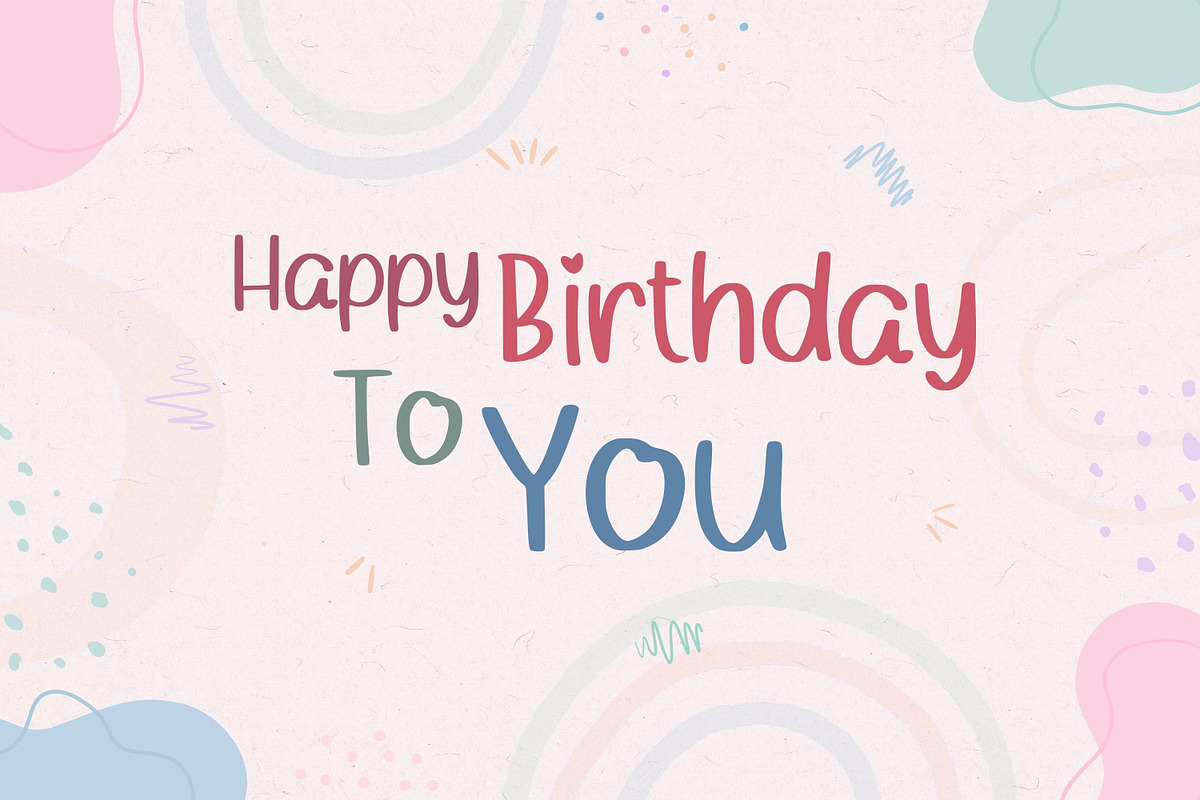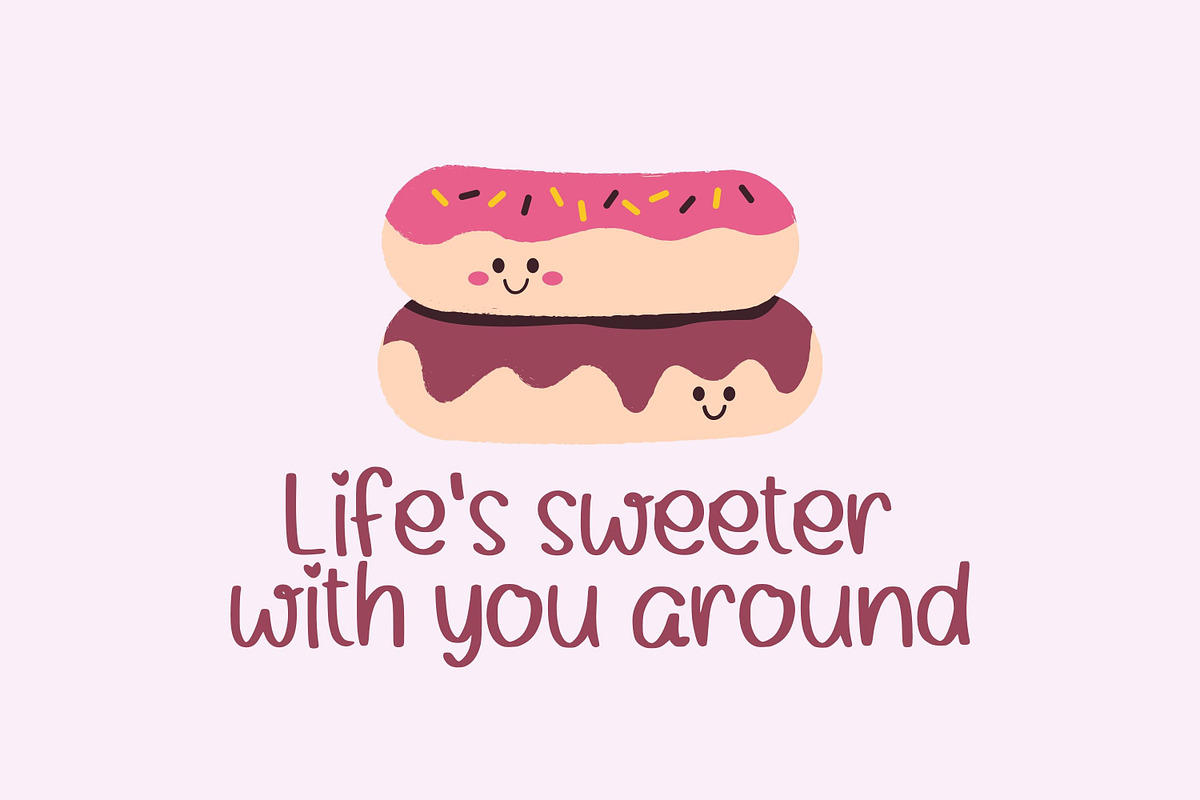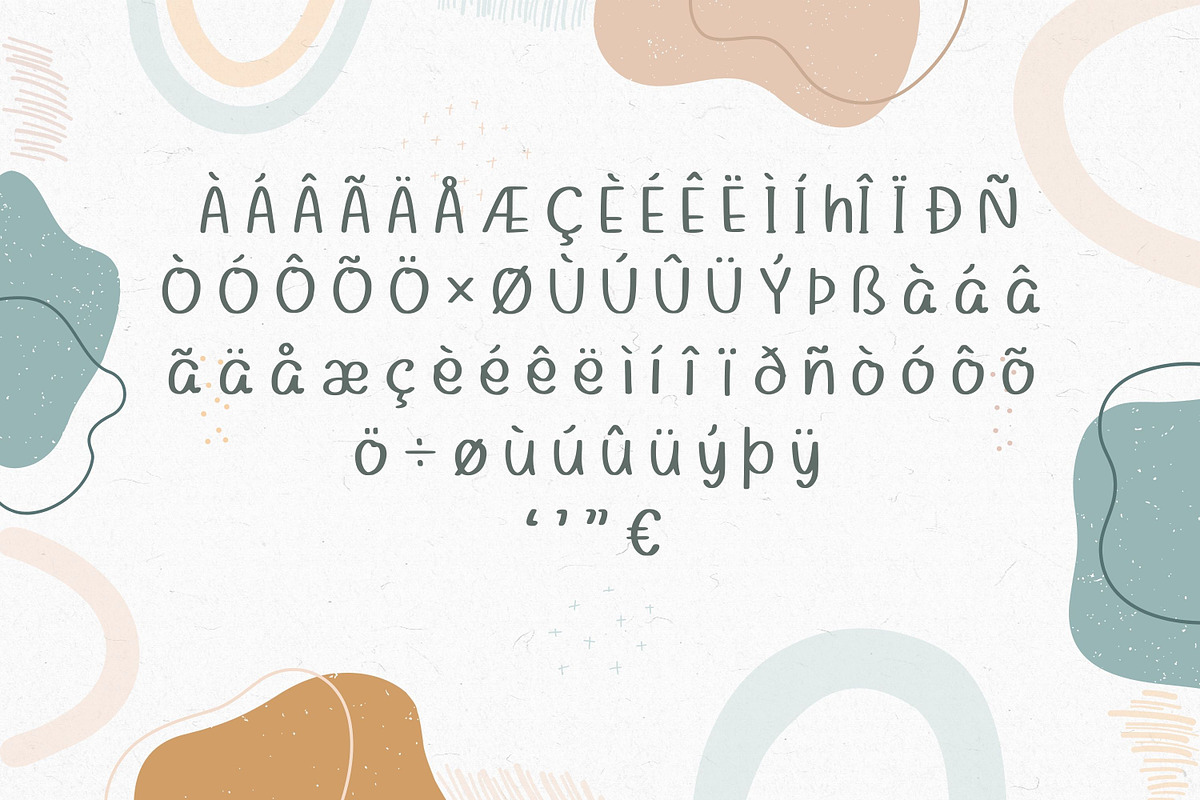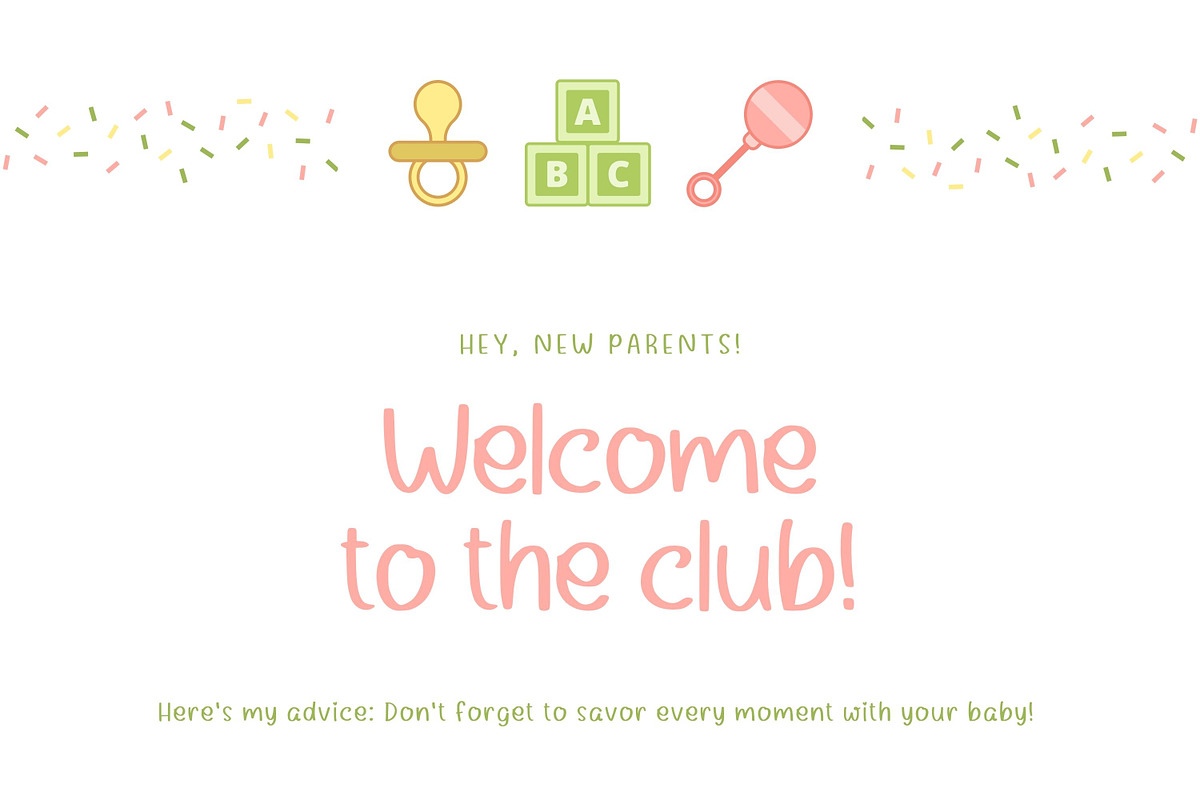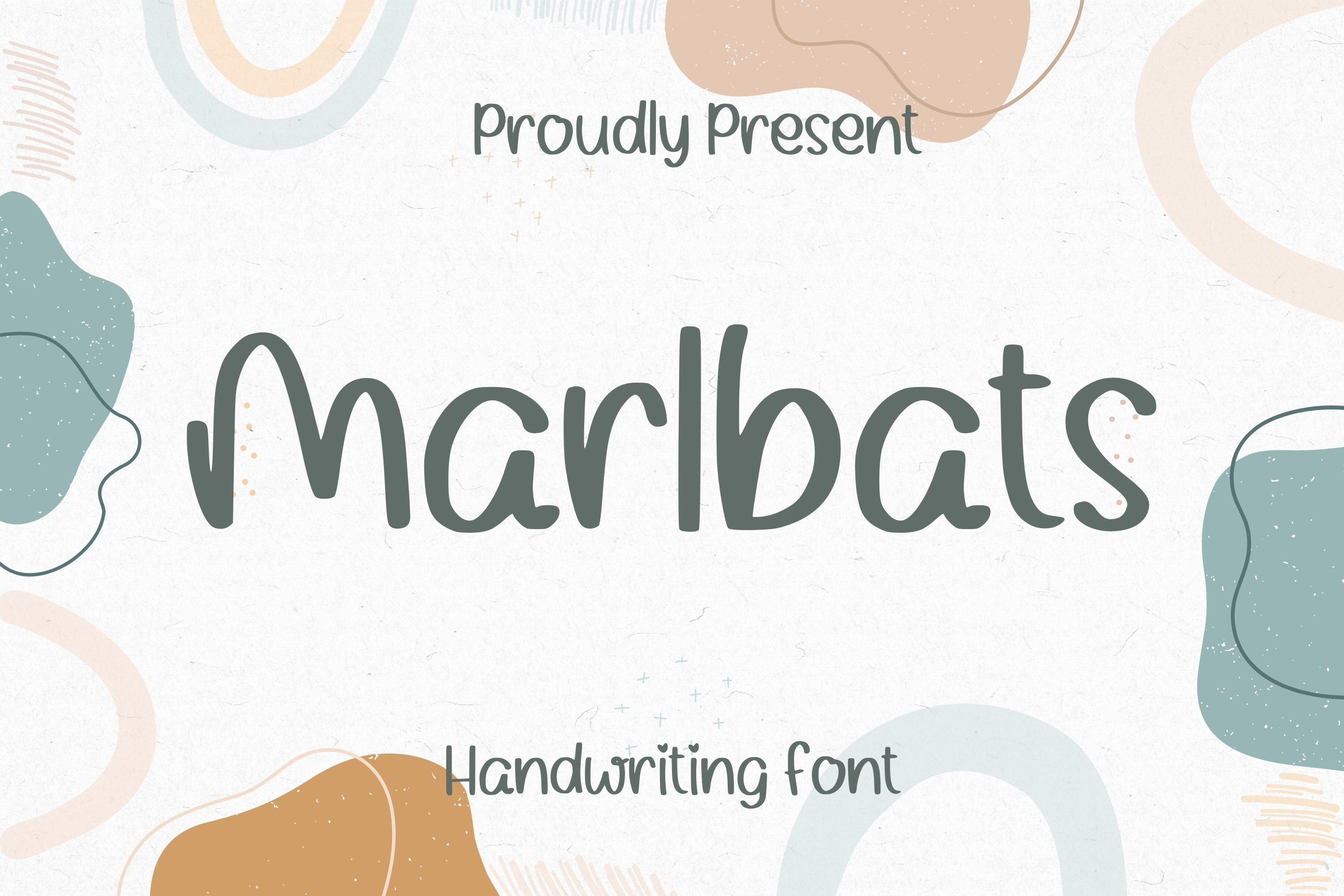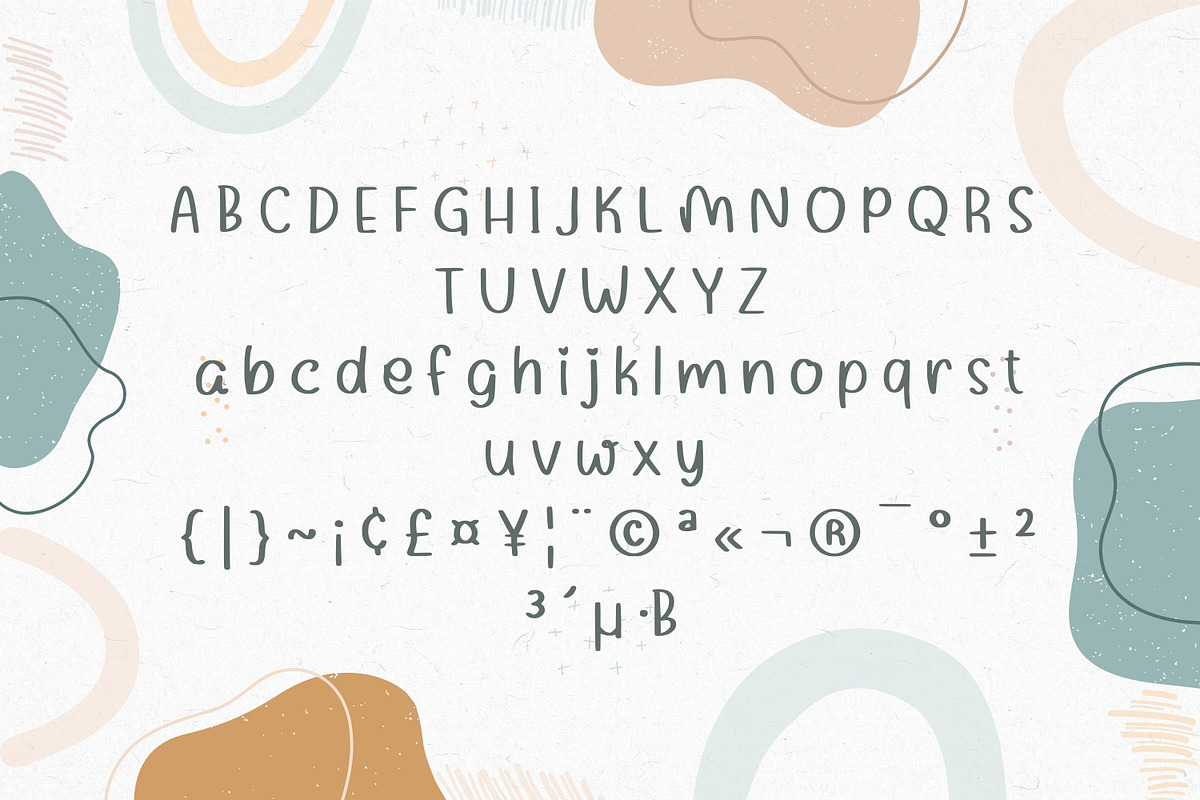
Marlbats Font
Marlbats is a cute and simple lettered handwritten font that can be used for all chalkboard quotes or teaching material! Its authentic look will add a personal and realistic feel to your designs.